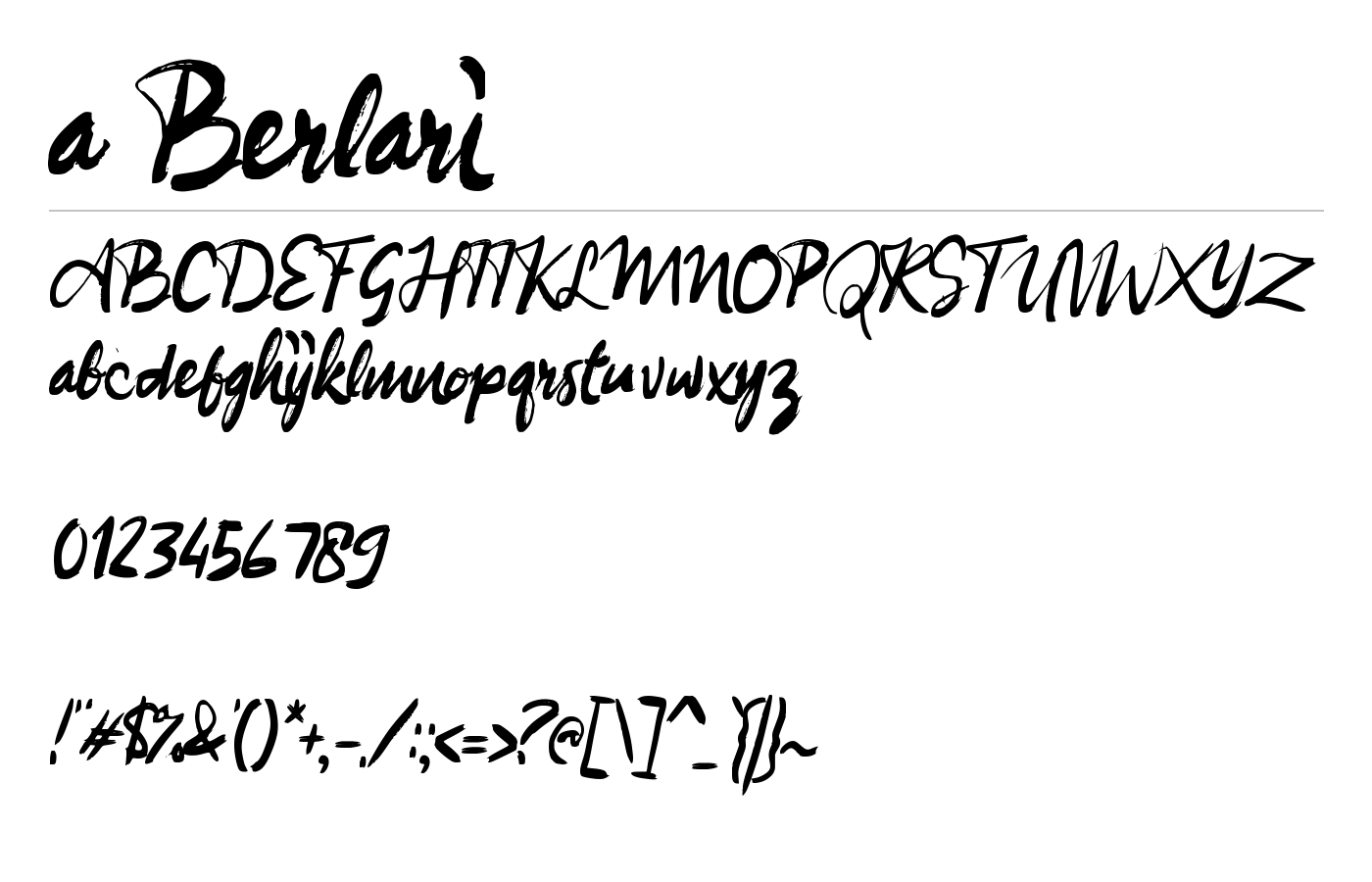
a Berlari is a dynamic and expressive handwritten script font with an artistic, brush-like texture that gives it a casual yet confident personality. Its slightly irregular strokes and lively curves make it perfect for creative projects, branding, and headlines that seek a personal, energetic touch. This font works well in designs that want to stand out with a bold, handcrafted feel, making it ideal for posters, logos, and fashion or lifestyle branding.
a Berlari Font
About a Berlari Font